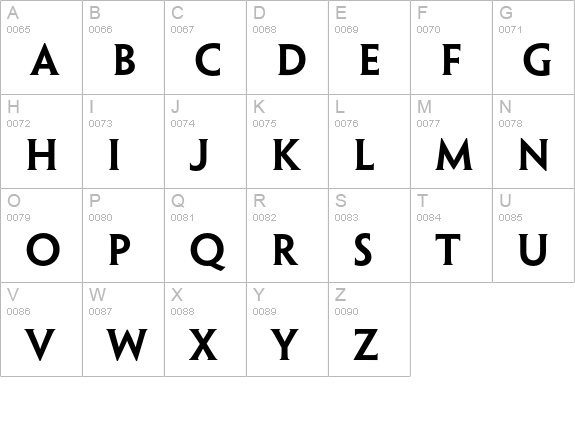
Penumbra HalfSerif Std Semibold is a sub-bold, structured variant in the Penumbra typeface family \xE2\x80\x94 well suited to sub-headlines and emphasised passages.
Penumbra HalfSerif Std Semibold font is a striking and versatile typeface that effortlessly combines the elegance of serif fonts with the modern appeal of a sans-serif. Its unique design features a subtle balance between the strong, bold lines of a serif and the clean, refined edges of a sans-serif, resulting in a font that is both eye-catching and legible. With its semi-bold weight, Penumbra HalfSerif Std Semibold font exudes confidence and sophistication. It is the perfect choice for headlines, titles, and logos that require a bold and commanding presence. This font's versatility allows it to work well in both print and digital mediums, making it an excellent option for a wide range of design projects. Penumbra HalfSerif Std Semibold font's distinct style is further enhanced by its refined details and smooth curves. The carefully crafted letterforms create a harmonious balance between the serifs and the absence of them, resulting in a font that is visually appealing and easy to read. Its generous x-height ensures excellent legibility even at smaller sizes, making it suitable for body text as well. One of the best features of Penumbra HalfSerif Std Semibold font is that it is free to download. This means that designers and creatives can easily access this font without any cost, making it an excellent resource for both personal and commercial projects. You can freely download Penumbra HalfSerif Std Semibold font at FontsMarket.com, a trusted platform for high-quality fonts. Whether you are working on a branding project, designing a magazine layout, or creating eye-catching social media graphics, Penumbra HalfSerif Std Semibold font is a versatile and stylish choice that will elevate your design to new heights. Its unique blend of elegance and modernity, combined with its availability as a free download, makes it a must-have font for any designer's toolkit.